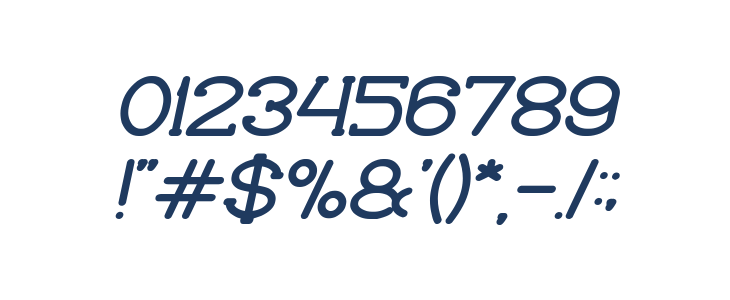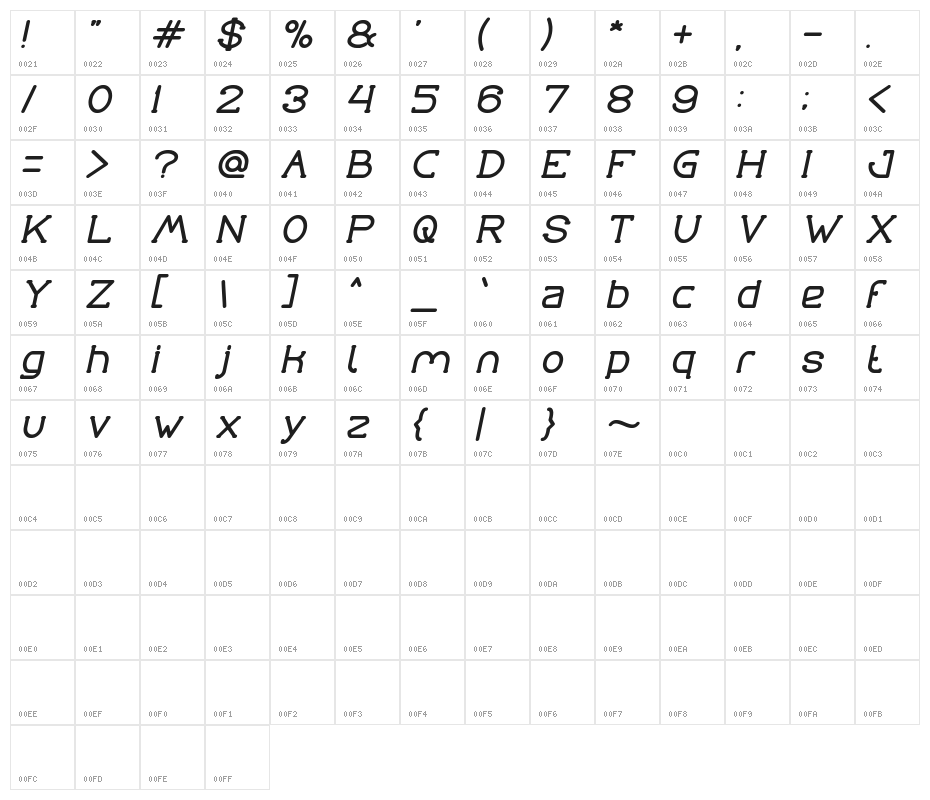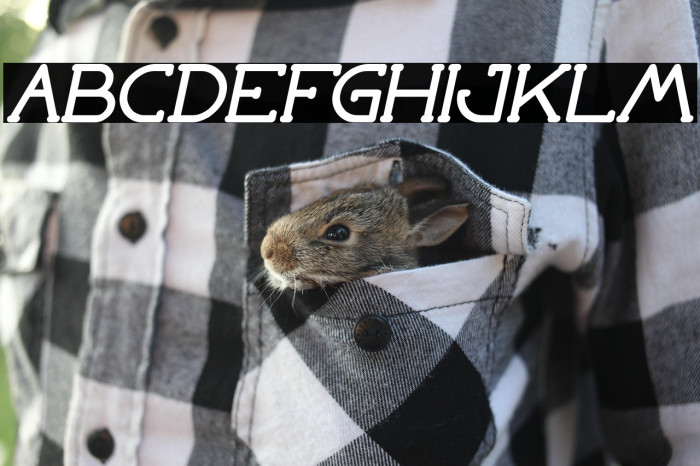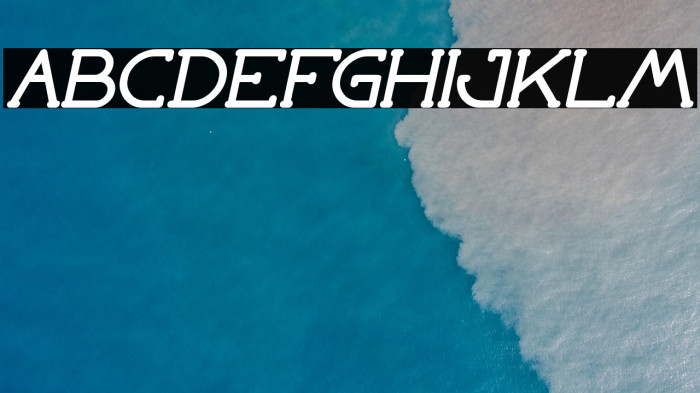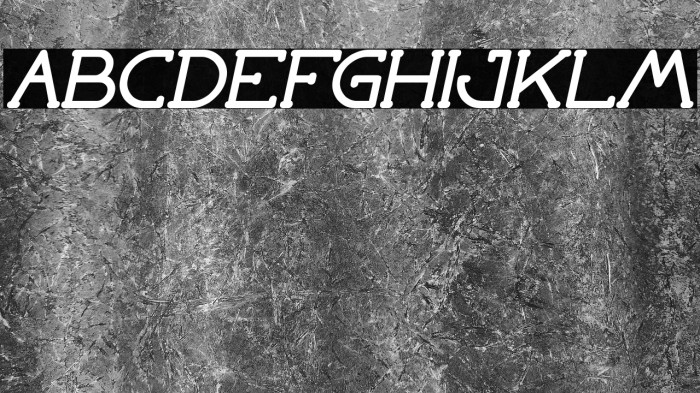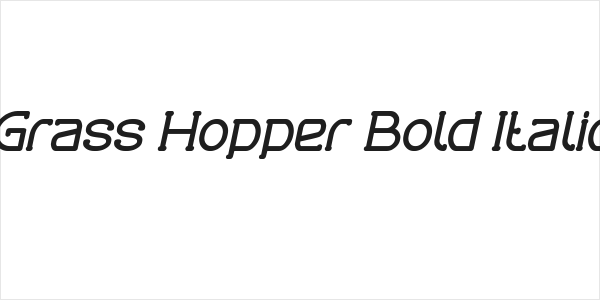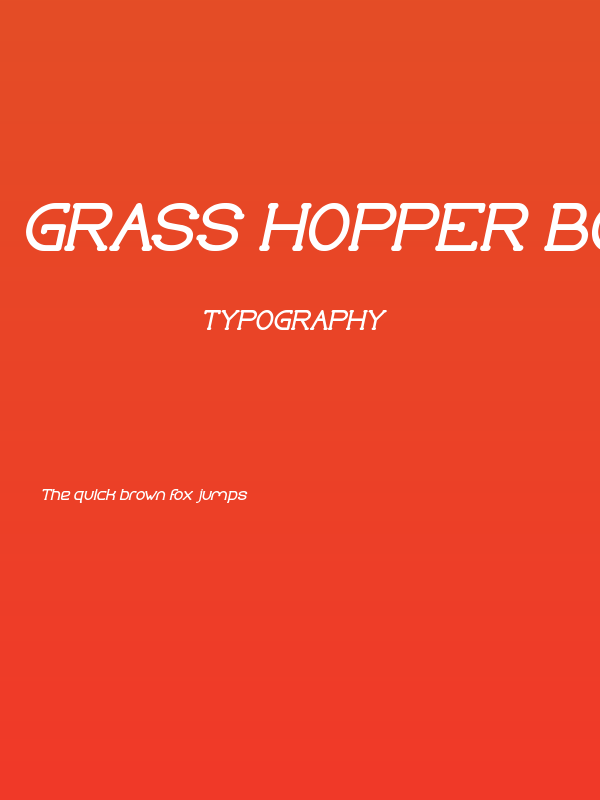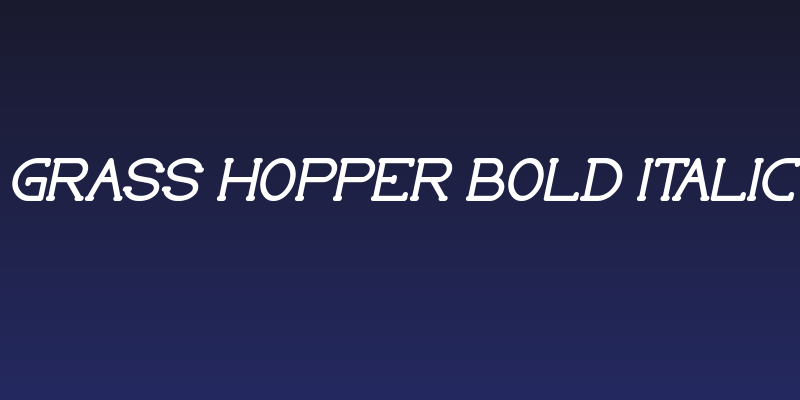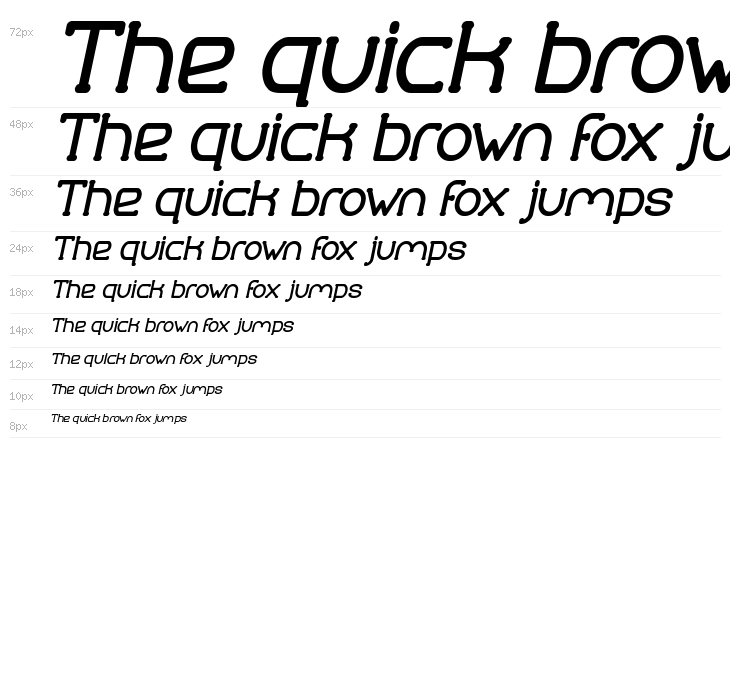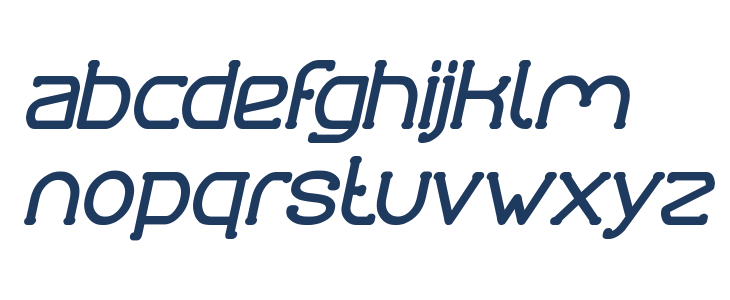
Grass Hopper Bold Italic Font
Grass Hopper Bold Italic Description
This font features a bold and italicized style with a modern, playful twist. The characters are rounded and slightly slanted, giving a sense of movement and fluidity. The uppercase letters are distinct with a consistent stroke width, while the lowercase letters maintain a cohesive look with a slight variation in height and curvature. The numerals are clear and legible, matching the overall style of the alphabet. Special characters are included, maintaining the same bold and italicized characteristics. The font's design is both unique and versatile, suitable for a variety of creative applications.